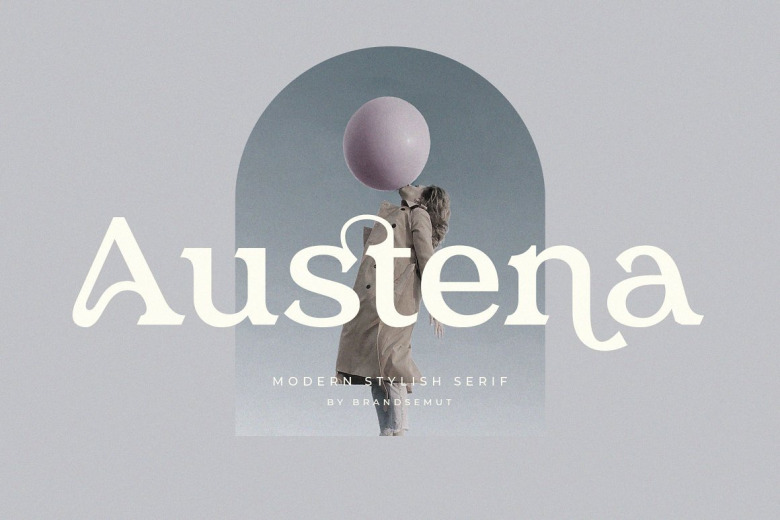
Austena Font
Austena Serif is a modern and elegant typeface, most often used for its unique play on characters to act as a display face in titles, logos, and other graphic art designs. Austena was designed as a great pair of lines combined with smooth curves which add that extra-frisson to any project.
Austena Serif Font